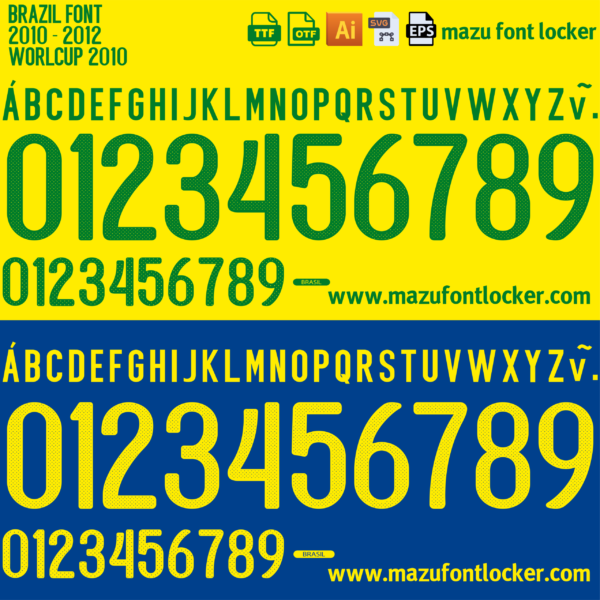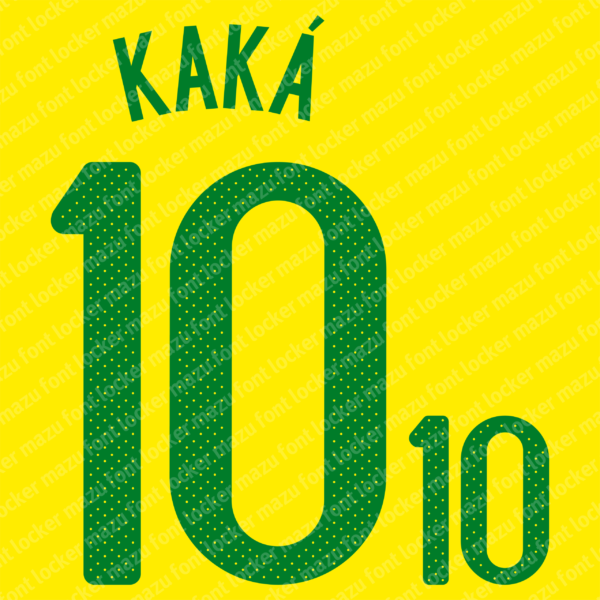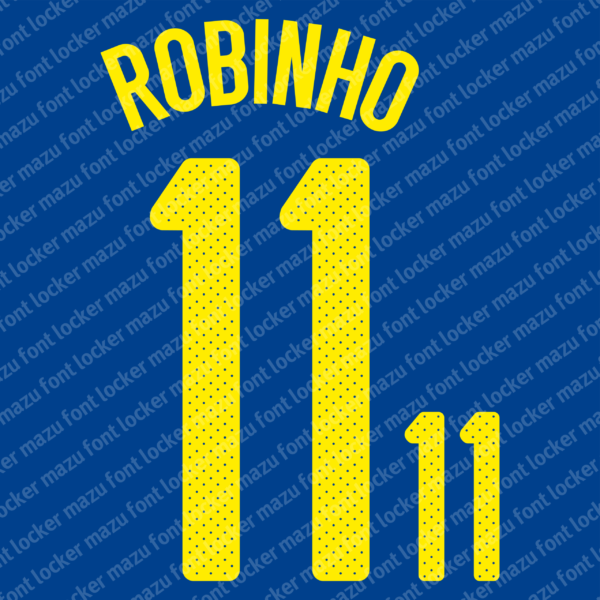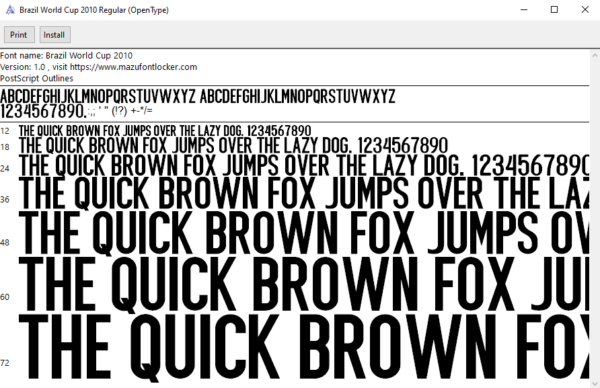
Brazil World Cup 2010 is a high-quality football jersey font vector designed to replicate the official lettering and numbering style used during the World Cup 2010. This Brazil World Cup 2010 font is perfect for designers, football fans, and creators who want accurate and professional jersey customisation.
Inspired by the official kit of Brazil, this Brazil World Cup 2010 font delivers a clean and authentic match-day appearance. Every letter and number has been carefully recreated to match the real jersey design, ensuring your projects look realistic and professional.
Brazil World Cup 2010 Font is a high-quality football jersey font vector created to replicate the official lettering and numbering style used during the iconic World Cup 2010. Perfect for designers, football fans, and jersey customisation projects, this font set delivers an authentic and professional match-day appearance.
Inspired by the original Brazil World Cup 2010 team kit, every letter and number has been carefully recreated to ensure accurate retro styling for both digital and print projects.
- Authentic World Cup 2010 Brazil jersey lettering style
The authentic lettering style helps recreate the classic look of the Brazil World Cup 2010 kit with professional accuracy.
Unlike generic jersey fonts, this set is designed with a strong focus on authenticity and accuracy. Every detail is based on the original match lettering style used during the World Cup 2010, helping designers and collectors create realistic football shirt designs.
This Brazil World Cup 2010 font vector set is designed for authentic football jersey customization and works perfectly for retro football projects, collector designs, and professional sportswear artwork.